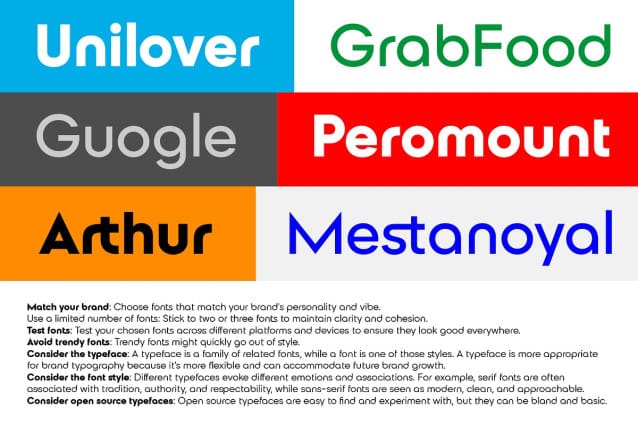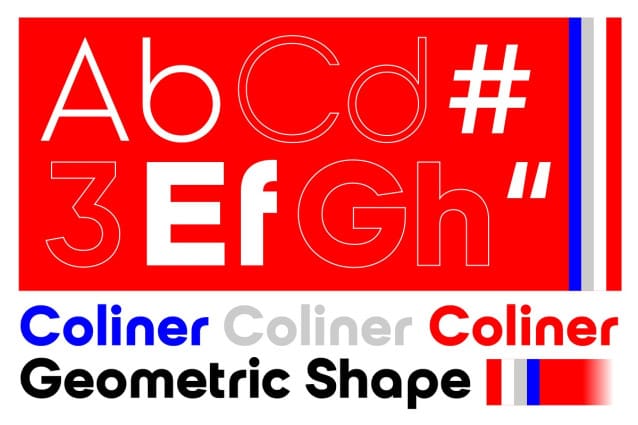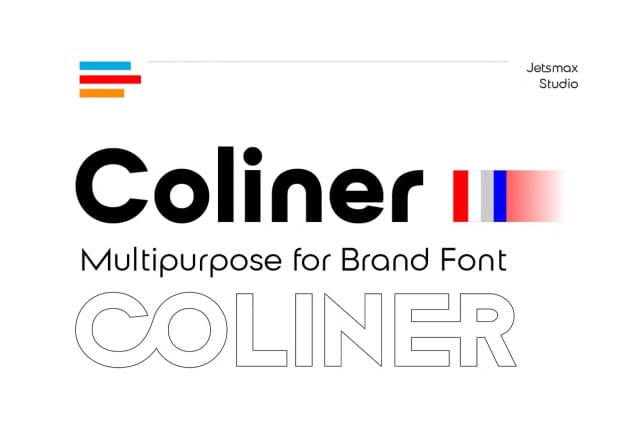
Coliner Font Family
Coliner Font Family is a modern, geometric font that combines clean lines with bold precision. Its design is rooted in symmetry and structure, featuring shapes that exude a sense of balance and clarity. Ideal for contemporary branding, editorial layouts, and digital interfaces, Coliner is versatile and have 5 styles from Light to ExtraBold. Whether used for headlines, logos, or minimalist designs, this font adds a touch of sophistication and modernity to any project.